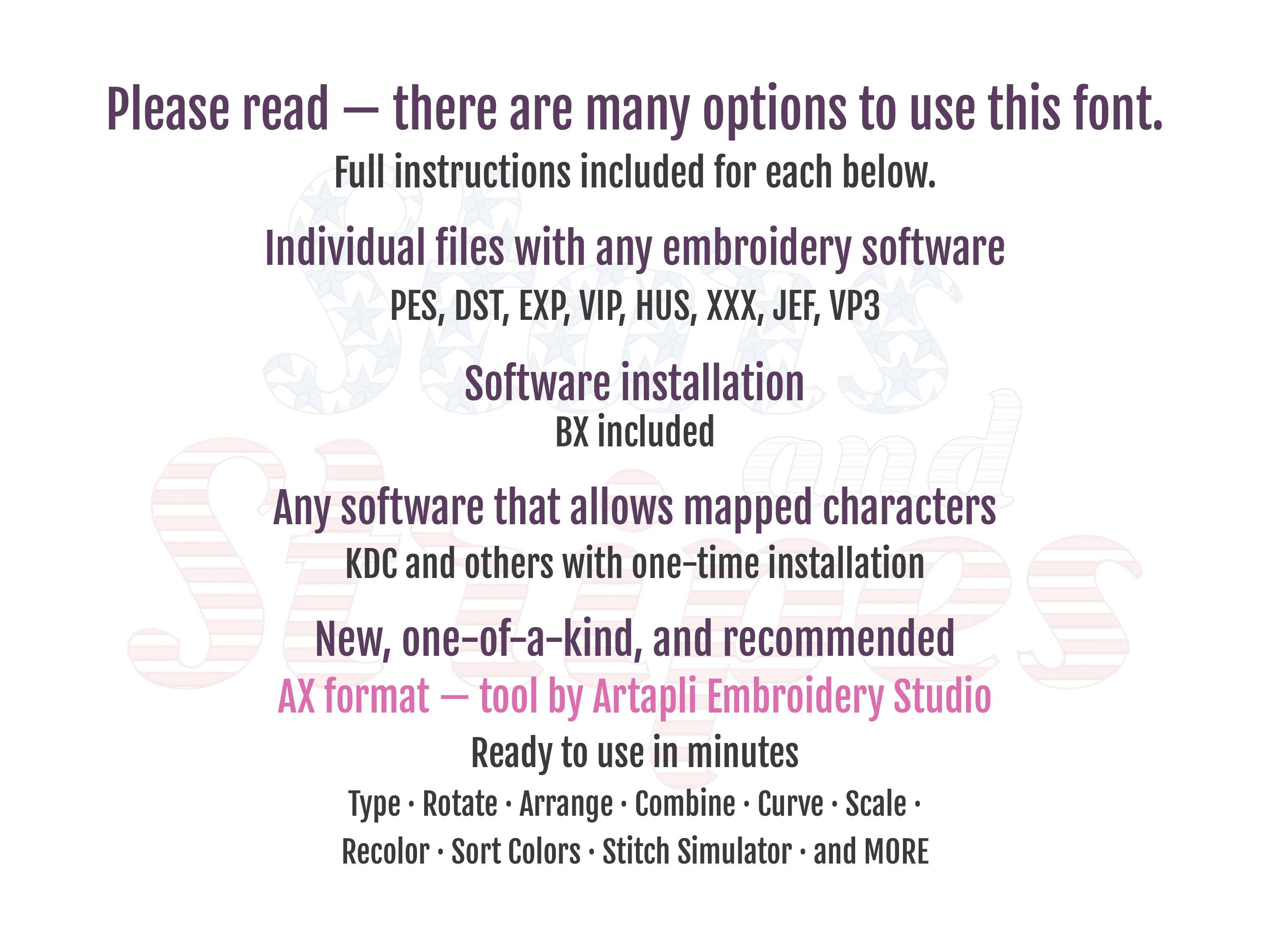
Stars and Stripes Patriotic Script Font 2 types machine embroidery designs SET of 2 alphabet letters assorted sizes 4th July Independence Day
Included 2 fonts in matching sizes.
You may combine starred and striped letters as you please.
Uppercase and lowercase letters, and numbers.
3.9 inches